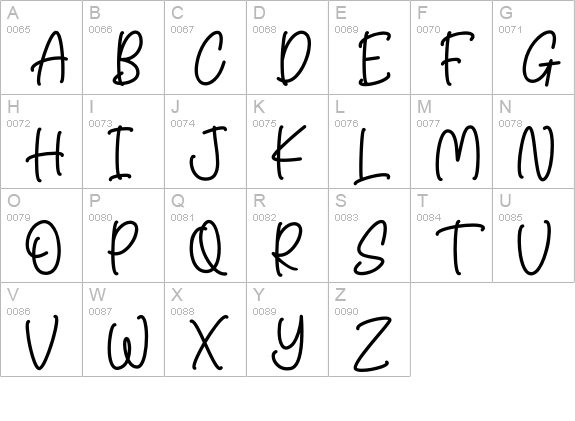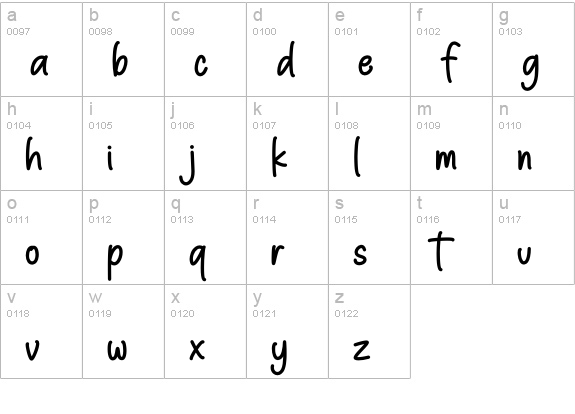
Blackberry Font Details
Blackberry is a free for personal use font in the Fancy > Cartoon category, designed by bluestype_studio. It has been downloaded 58 times and is available for Windows, Mac and Linux.
Introducing Blackberry font – a sleek and modern typeface that exudes elegance and sophistication. With its clean lines and contemporary design, Blackberry is perfect for adding a touch of refinement to any project. This versatile font is suitable for a wide range of creative applications, from branding to editorial design.